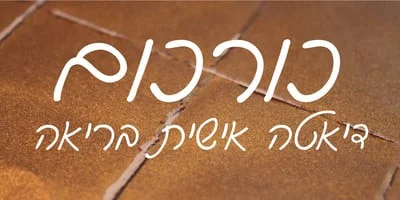
Mitkatevet MF Font
The Mitkatevet MF Font is a beautifully flowing and highly expressive script typeface, specifically designed to capture the authentic elegance and humanistic touch of Hebrew handwriting or calligraphy. Imagine its graceful characters gracing personalized Jewish wedding invitations, adding a sophisticated and heartfelt touch to traditional holiday greetings, or creating captivating titles for documentaries and books on Israeli culture and history. Its intricate yet legible forms, often with subtle flourishes and natural connections, also make it an excellent choice for bespoke stationery, artisanal product labels with a Middle Eastern flair, and any design where a touch of refined authenticity and cultural richness is desired. Whether you're aiming for a classic, traditional look or a modern design infused with the beauty of a handwritten Hebrew script, Mitkatevet MF Font delivers with its unique artistry, ensuring your visuals are both distinguished and truly memorable.
What makes Mitkatevet MF Font so exciting is its masterful blend of traditional calligraphic inspiration with contemporary digital design principles for Hebrew script. For a complex and cursive writing system like Hebrew, designing a font that is both aesthetically pleasing and highly functional across various media is a significant achievement. This font offers designers the ability to infuse their projects with a deep sense of cultural authenticity and artistic sophistication, while maintaining exceptional readability. It’s more than just a typeface; it’s a bridge between ancient art forms and modern communication, allowing creators to produce designs that are respectful of heritage and forward-thinking in their execution. Designers will find it an invaluable asset for creating compelling visuals that truly resonate with a Hebrew-speaking audience or convey cultural depth.
The Mitkatevet MF Font family is typically structured to offer a range of styles that enhance its artistic and functional appeal within the complexities of Hebrew typography. Beyond the primary Mitkatevet MF Regular typeface, you might find companion styles such as a more impactful Mitkatevet MF Bold for stronger emphasis, or perhaps Mitkatevet MF Light for a delicate touch. Given the intricate nature of Hebrew script and the variations in handwriting, the family may also include various stylistic alternates, ligatures, and contextual forms that ensure smooth connections and aesthetic harmony between characters, vital for maintaining the beauty and legibility inherent in the writing system. These diverse family members provide designers with the flexibility to establish a clear typographic hierarchy and maintain a consistent, elegant, and culturally resonant aesthetic across all elements of their project, from prominent headlines to detailed body text.